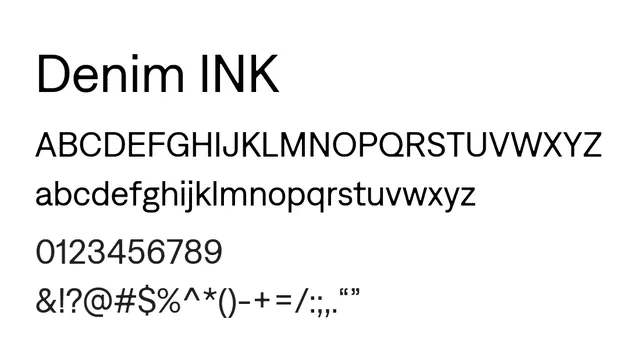
Denim INK
Bold geometric sans-serif with strong structural presence and confident character architecture throughout the weight range.
Best used for headlines and display situations where typographic boldness and geometric precision are desired. The solid construction works well in advertising and branding contexts.
Works well with Denim for a wider variant pairing, or with traditional serifs like Caslon for editorial layouts.